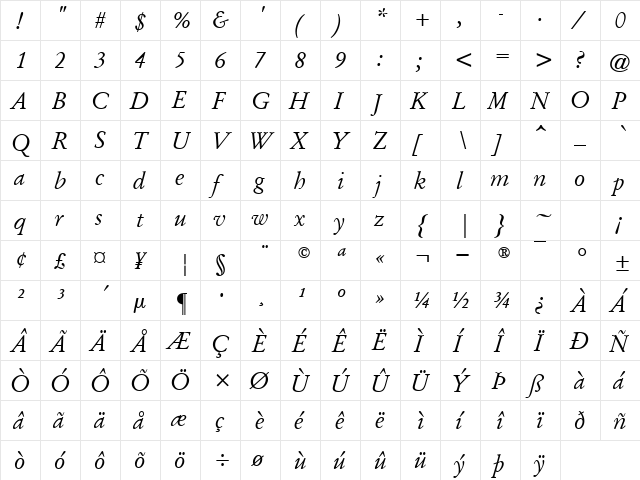
GaramondItalic Regular Font Preview
GaramondItalic Regular
Design Context for GaramondItalic Typeface
GaramondItalic takes a measured approach to typography — its balanced proportions and neutral character make it a reliable workhorse for both digital and print work. The dynamic lean of this cut emphasises speed and emphasis in any layout.